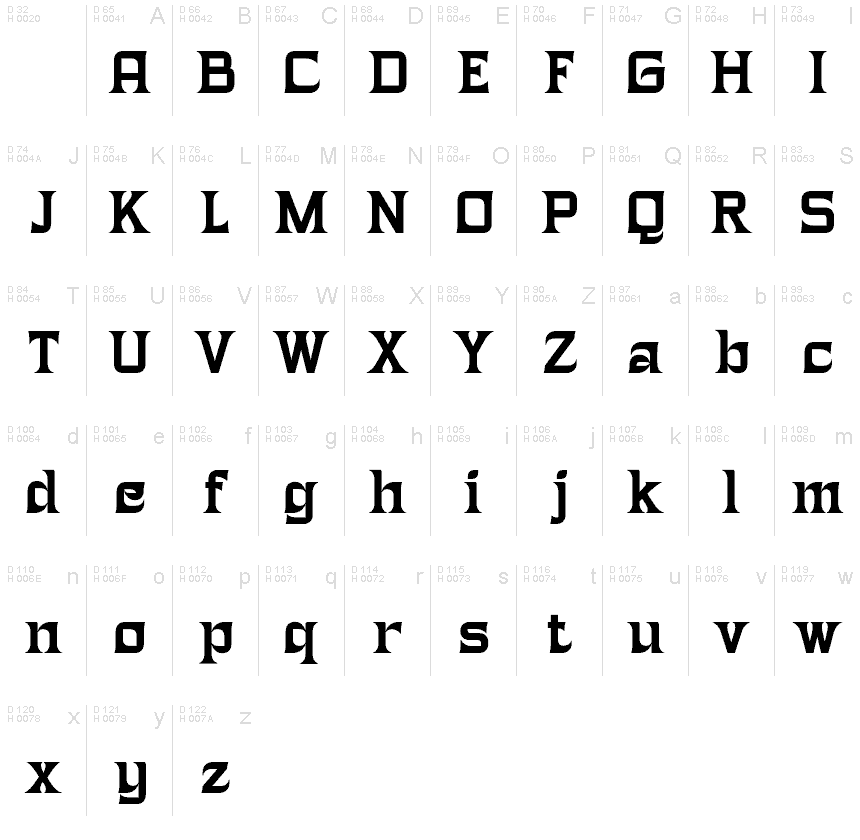
CS Mason Regular Demo
CS Mason font is a free serif font of bold weight and expanded width written and published by Craft Supply Co. Rounded geometric shapes with smooth finishing touches are included in plenty of characters, almost in every curve and corner. While futuristic and contemporary by nature, the typeface appears elegant due to its subtle contrast in strokes.
This modern display font is another excellent option for business cards, invitations, flyers, posters, magazines’ front pages and articles. Other uses also include book covers/titles/pages numbers/texts as well as logos, packaging design, branding projects elements, homeware goods labels and more.